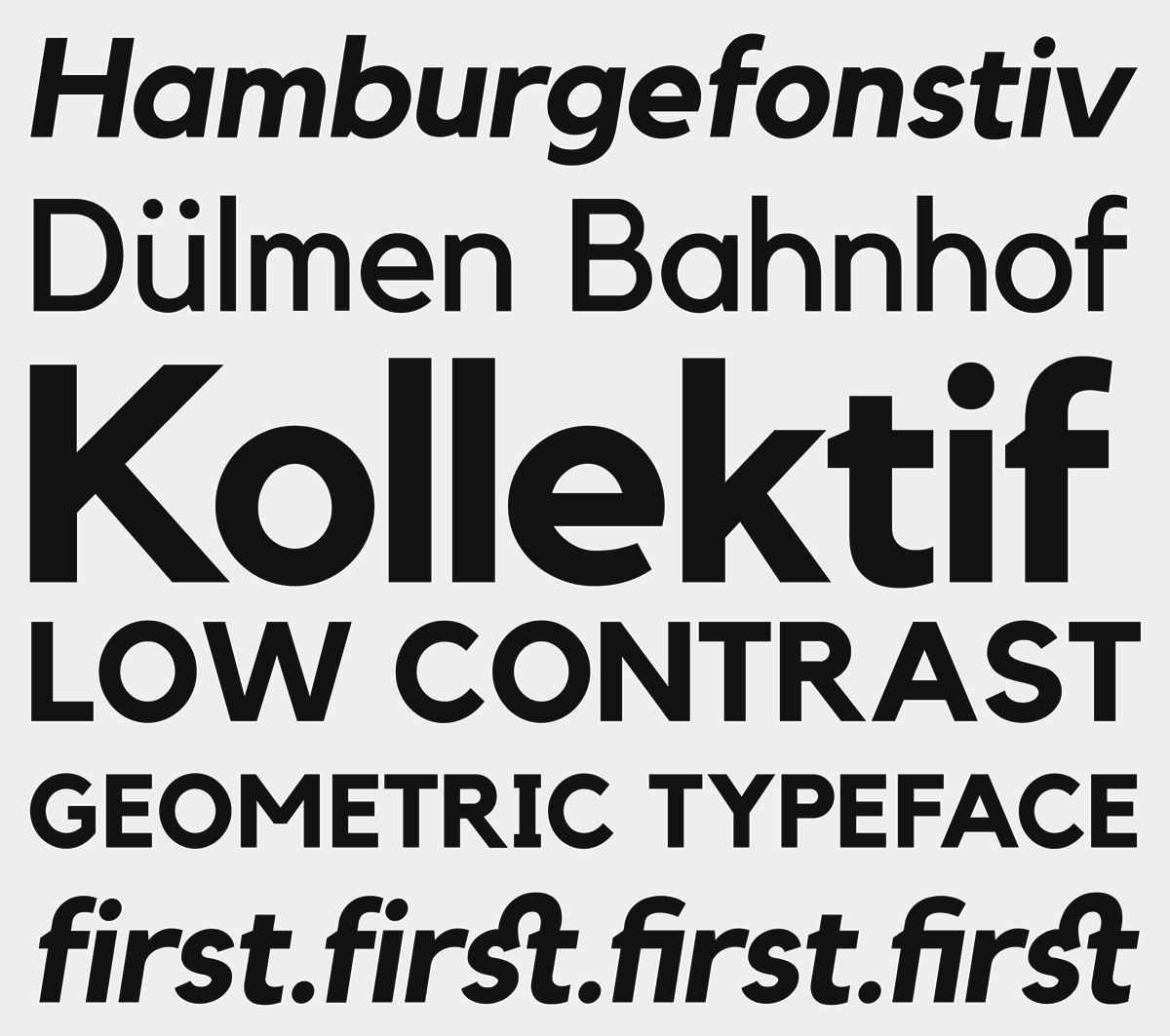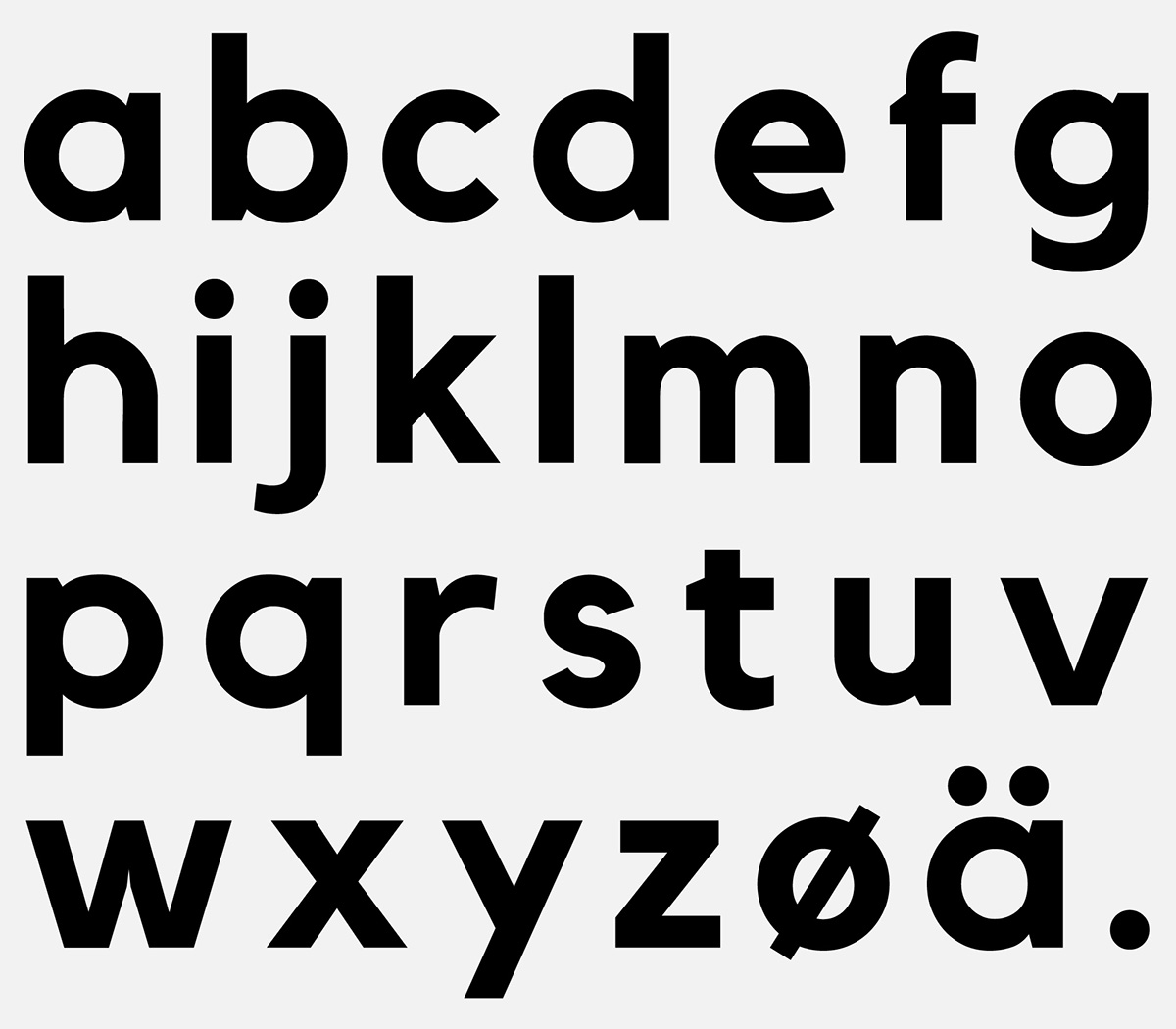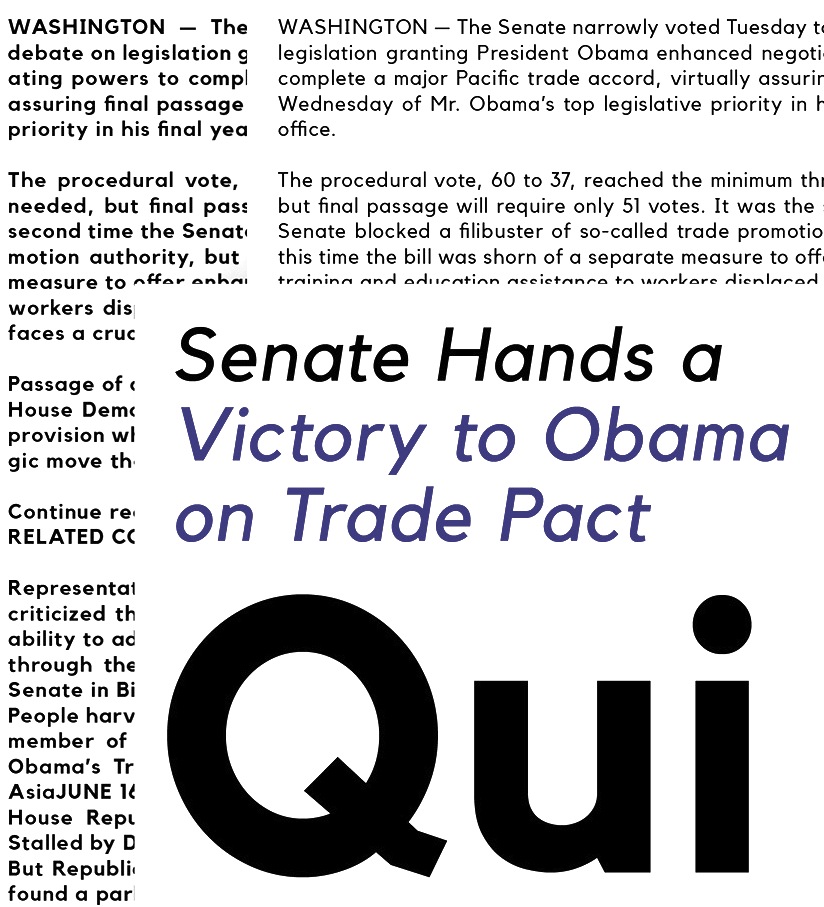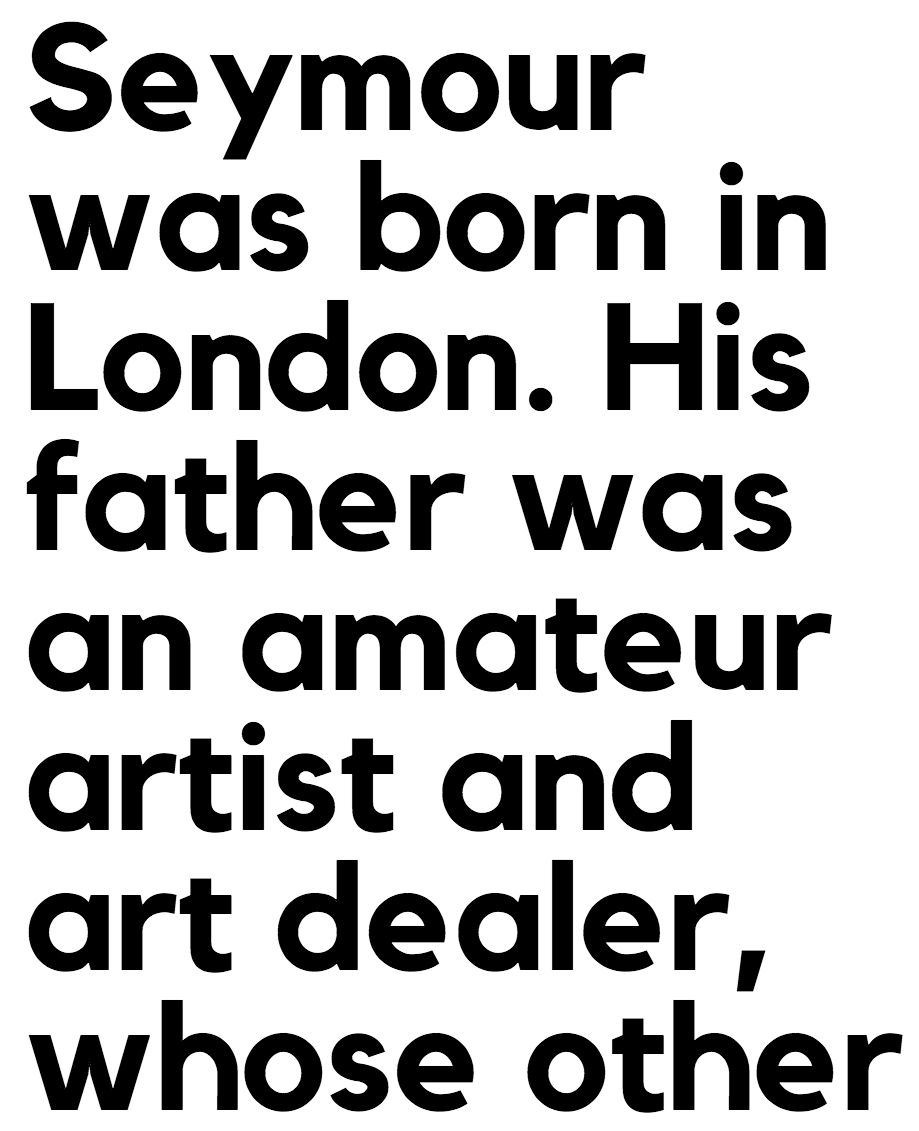
This Font Family Comes In 2 Different Styles And 4 Weights Including Kollektif Regular, Kollektif Italic, Kollektif Bold, Kollektif Bold Italic.
Designers pick this font family for printing purposes and to design logos. Kollektif has two styles and two weights. It is the perfect typeface for social media purposes.
Kollektif Font Is Highly Utilized In The Adobe.
It Can Be Used For Both Display And Text Use In Printed Media Or Web Applications.